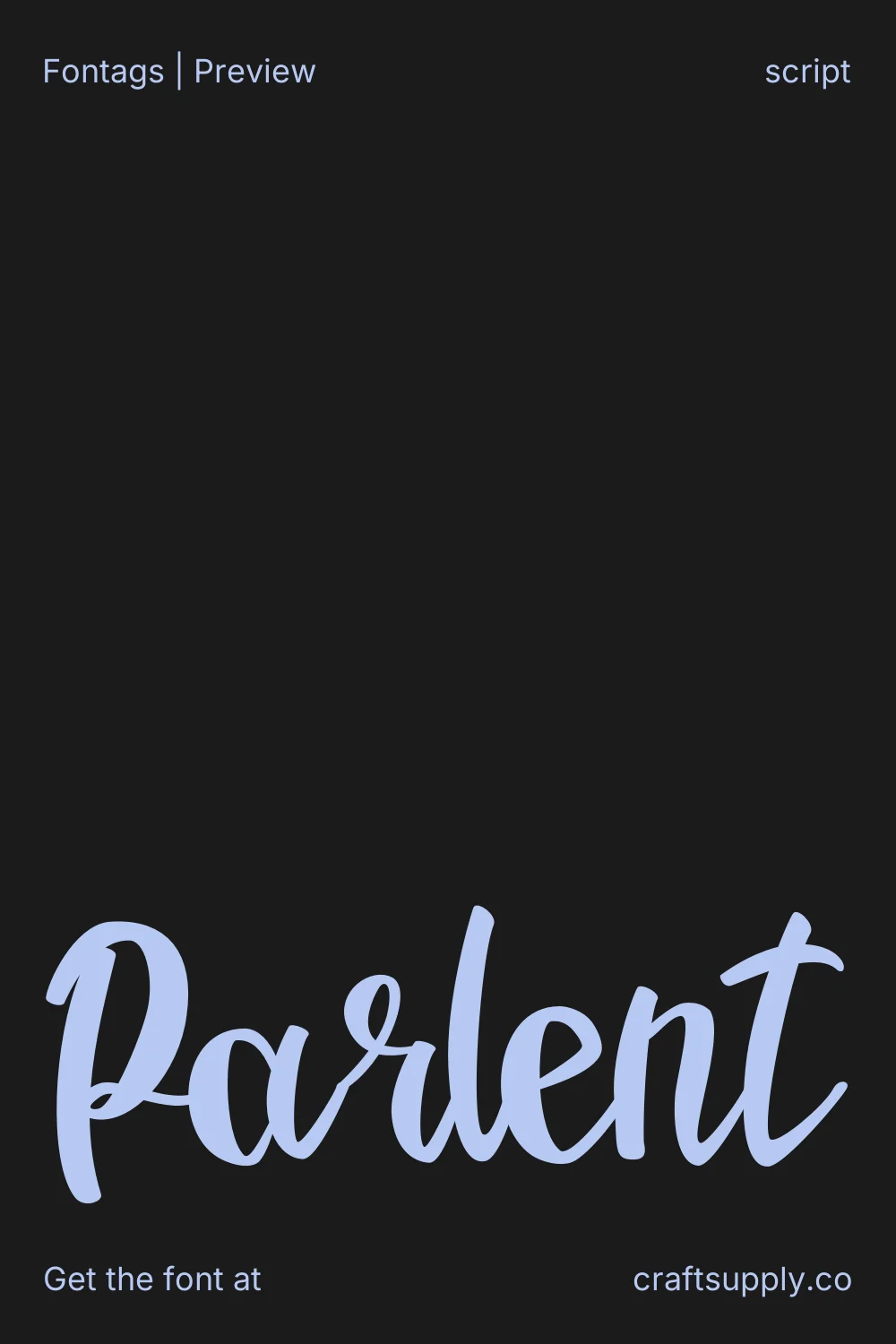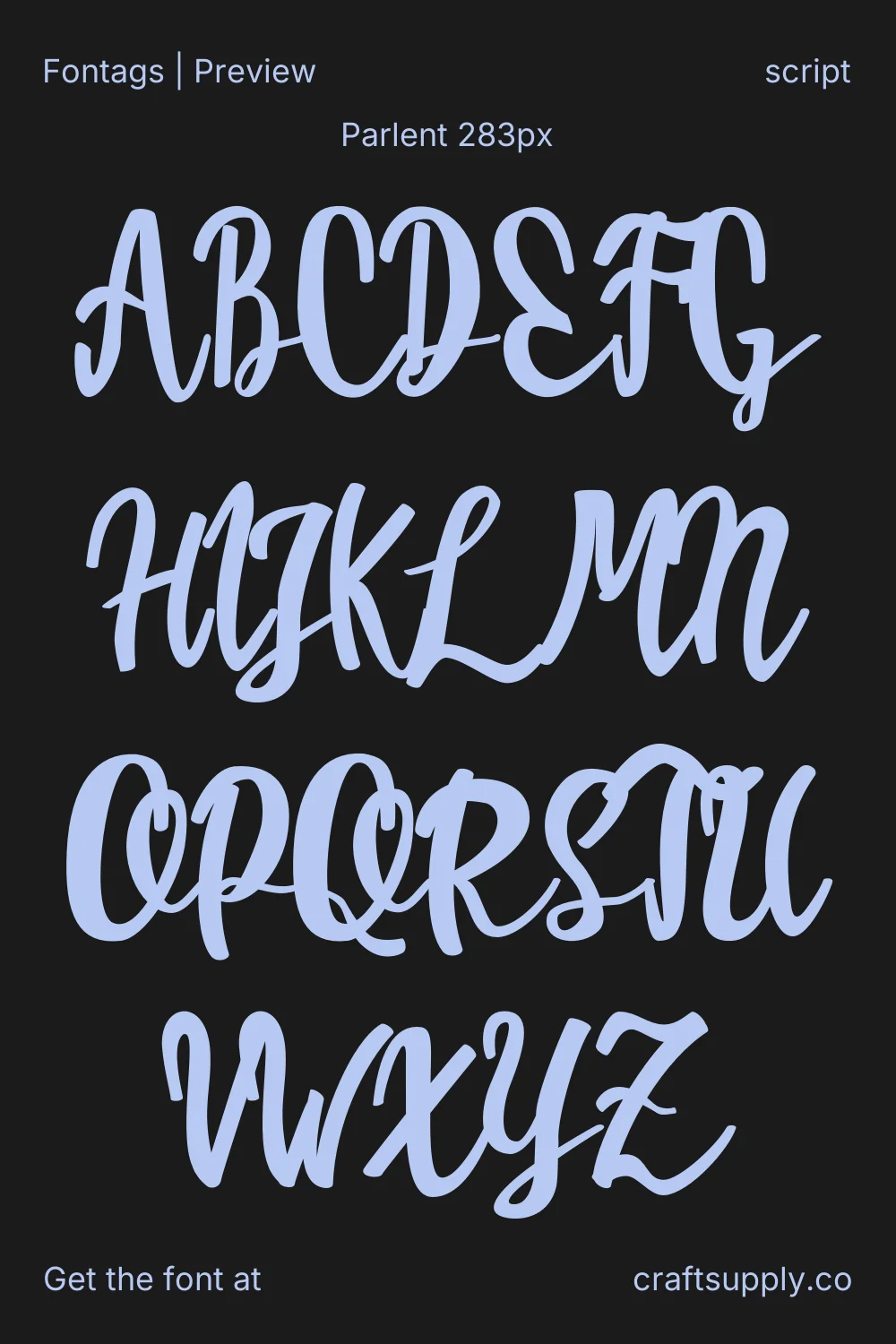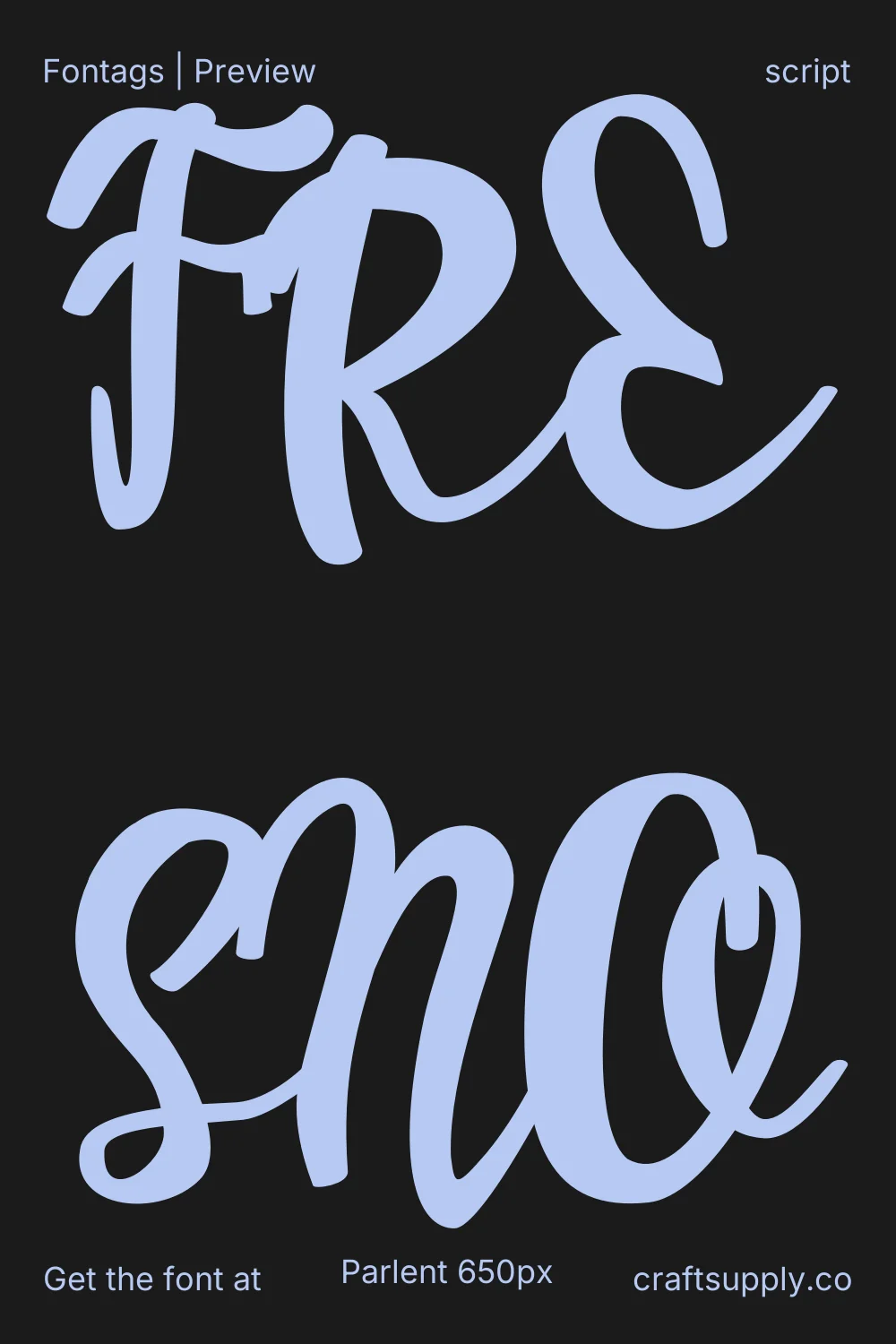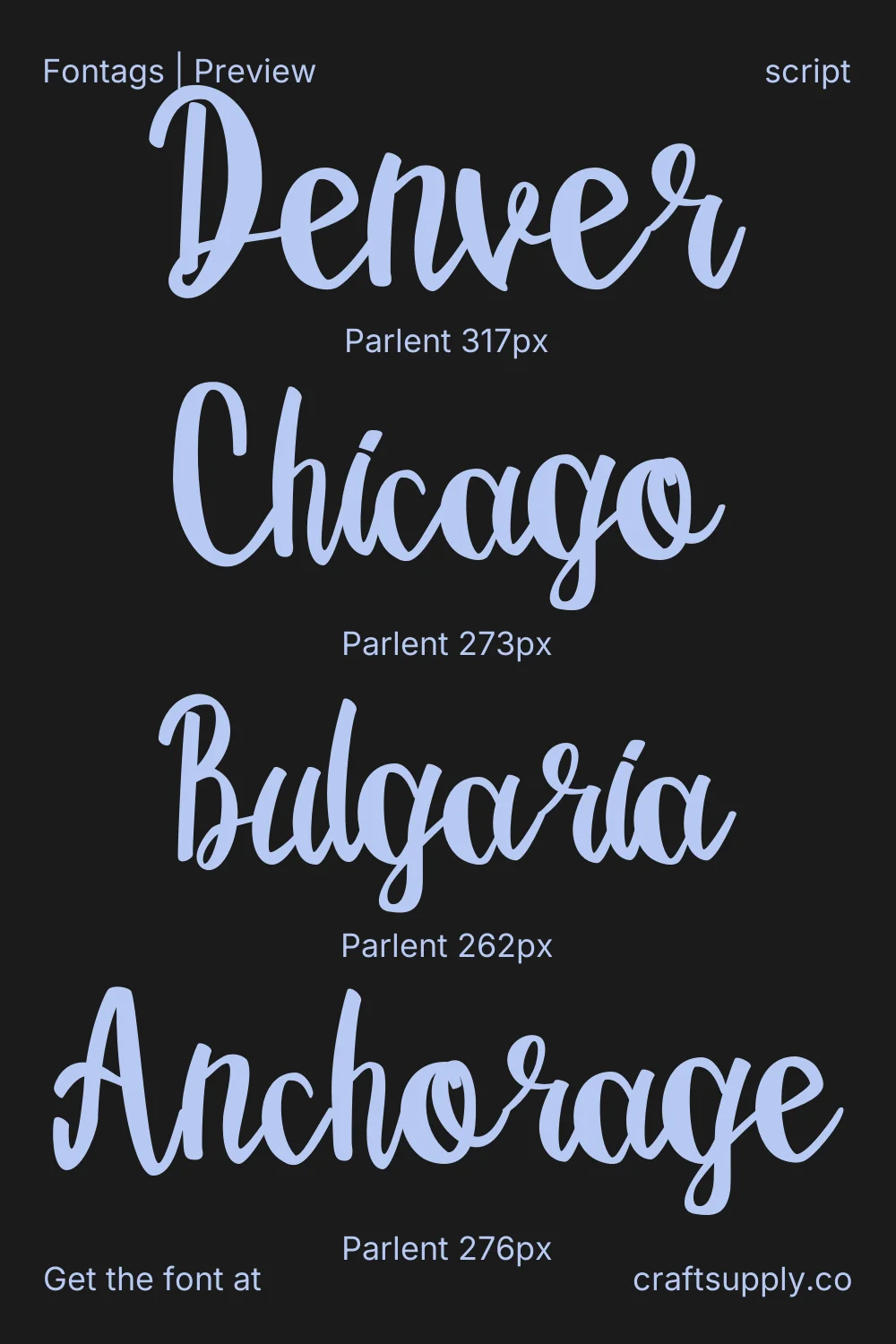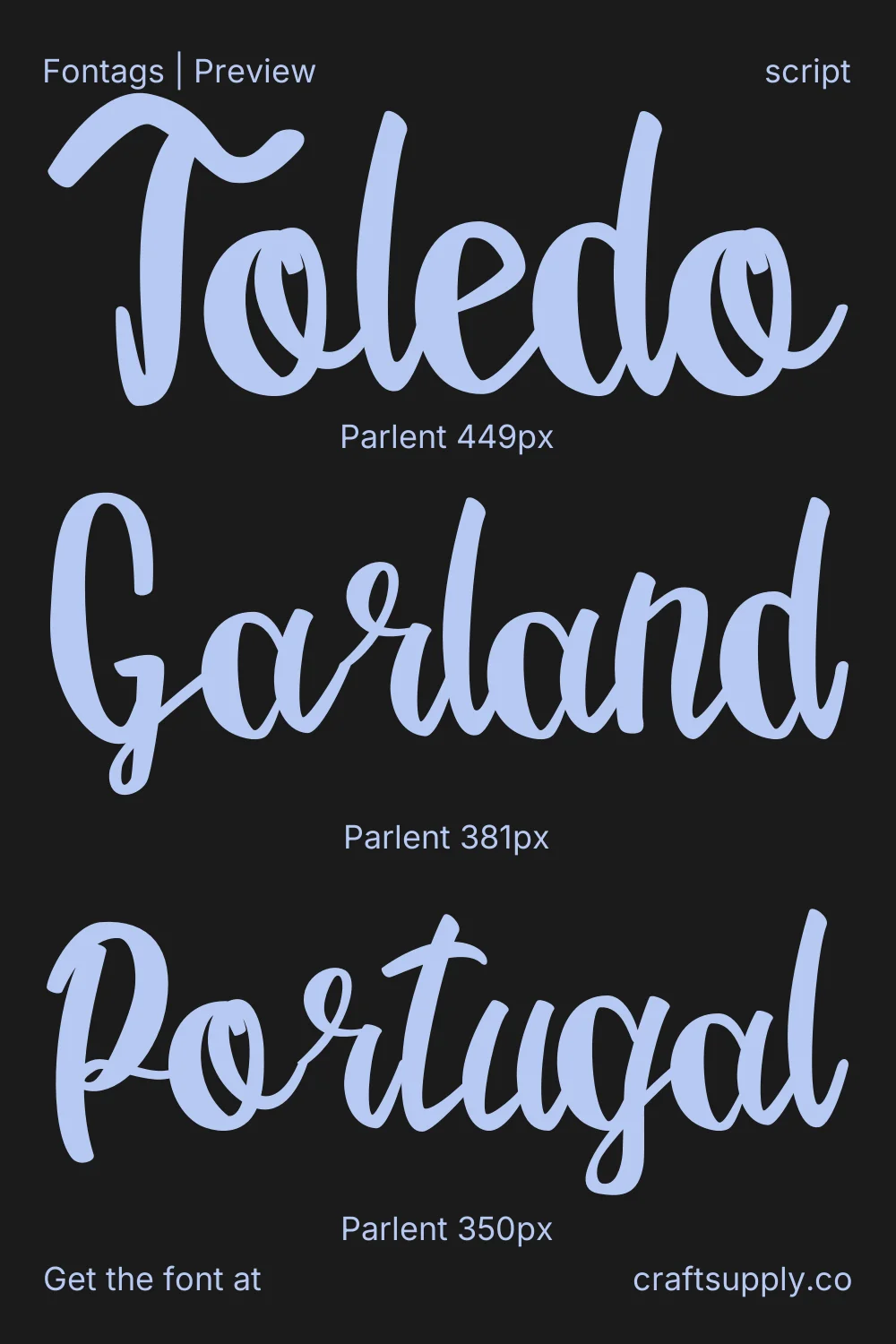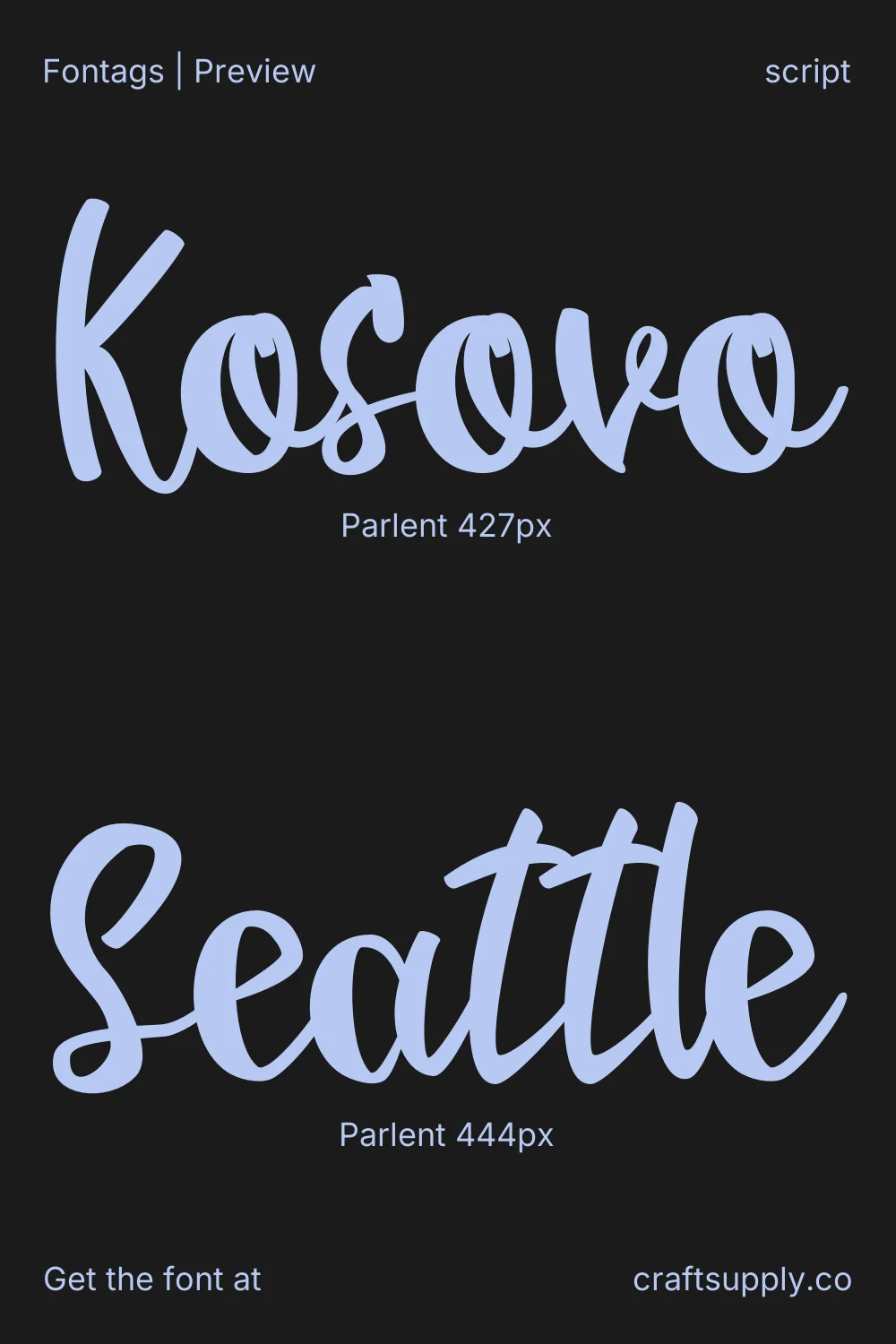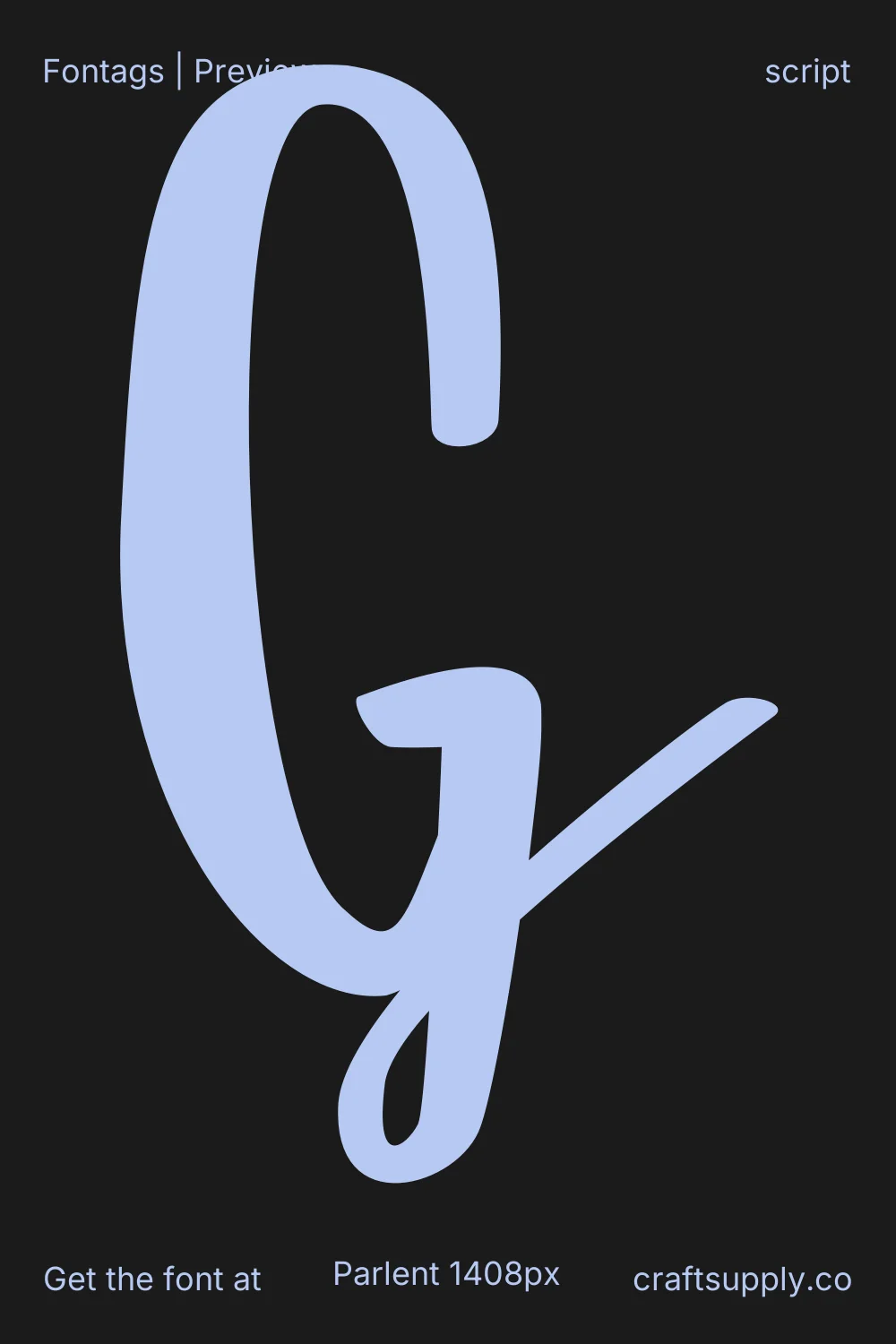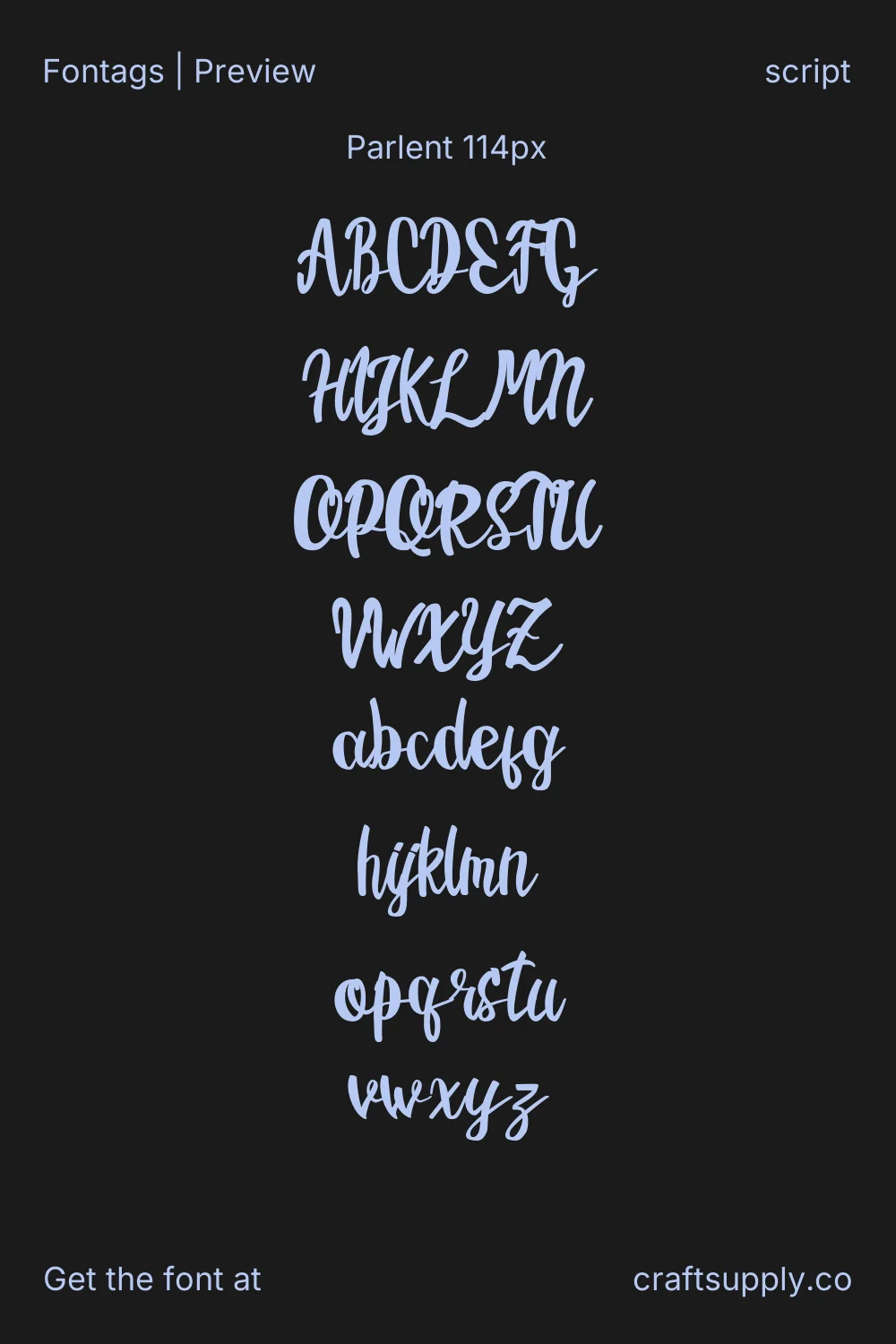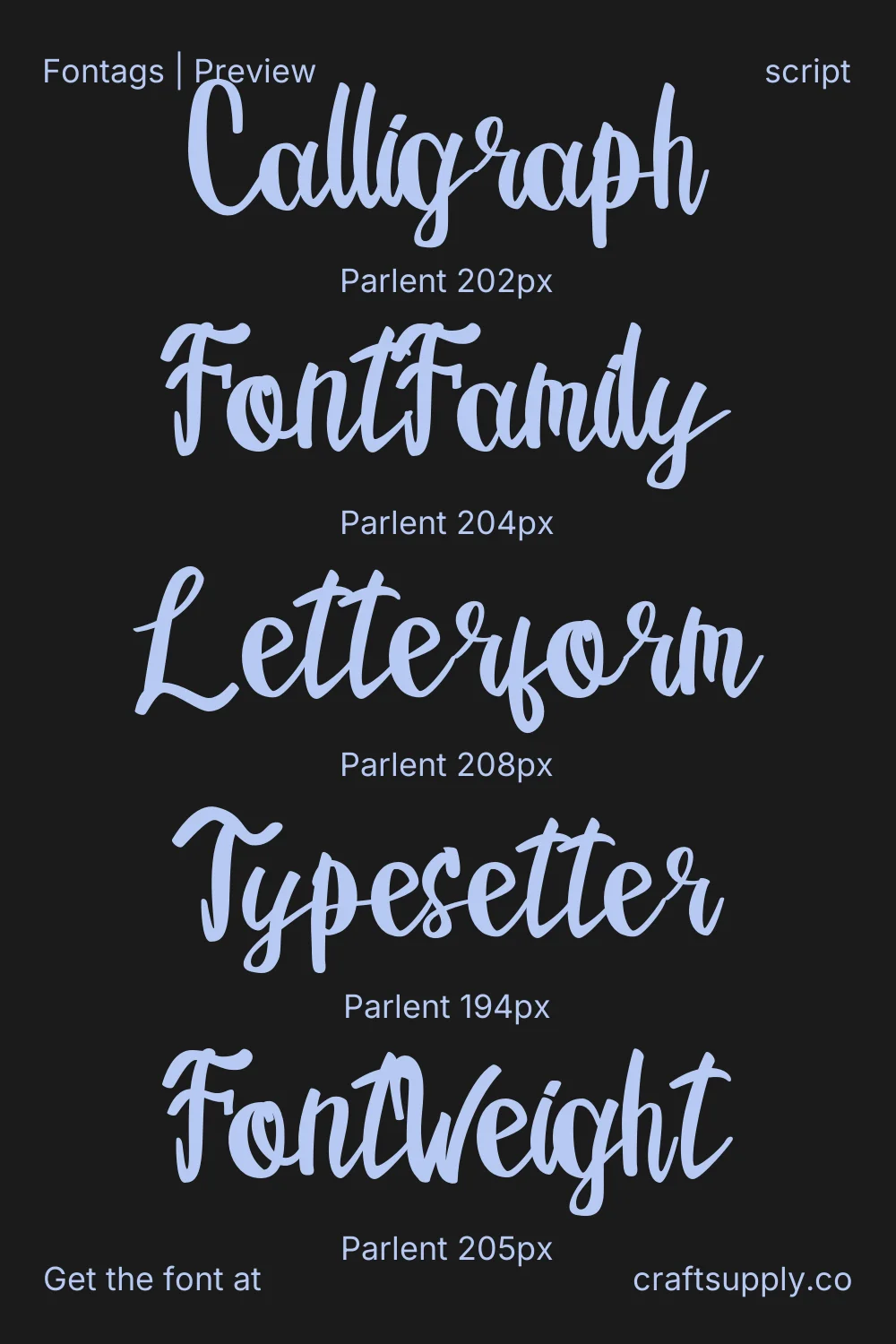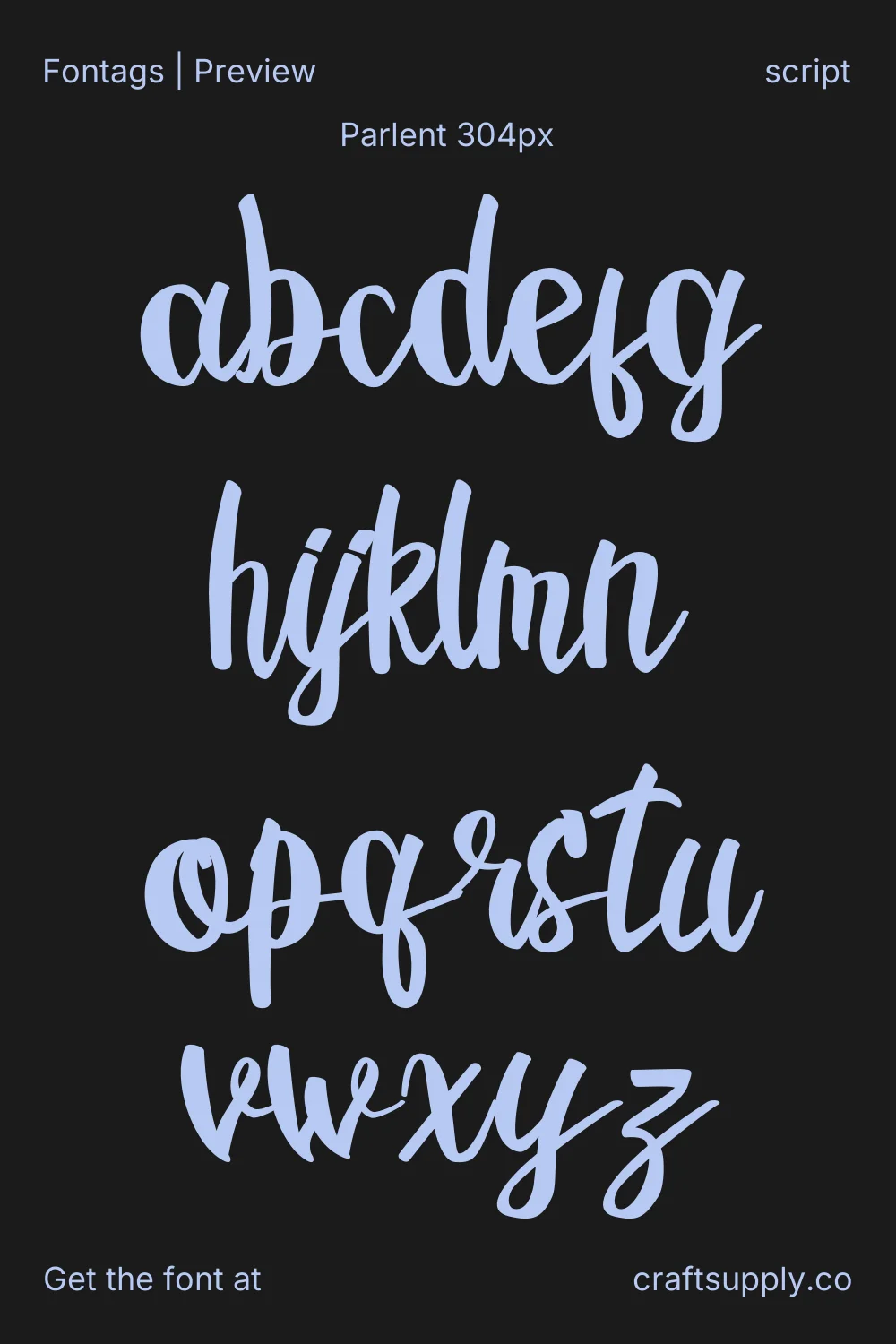
Parlent
Parlent is a handdrawn script typeface with a charmingly cute and playful personality. Its endearing and whimsical characters are perfect for projects that aim to bring joy and playfulness, such as greeting cards, invitations, and children's books. This versatile font adds a cheerful, lighthearted element to any design.